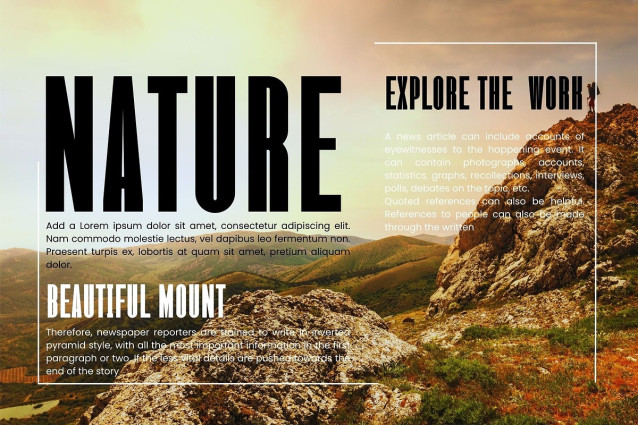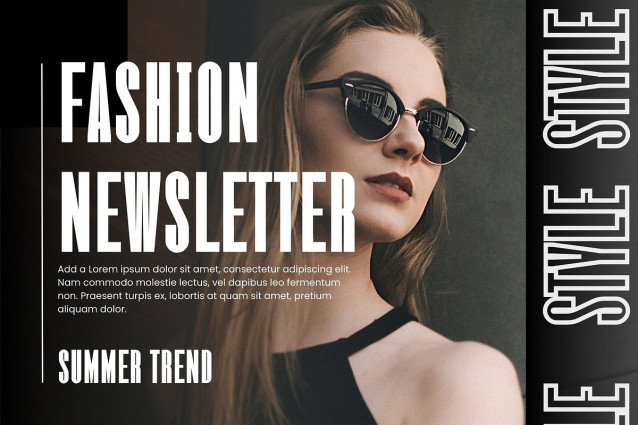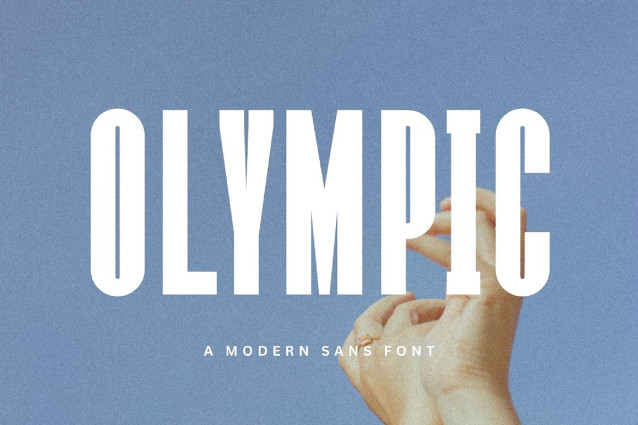
Olympic Font
Olympic Font, inspired by the famous minimalist logo perfect for the purposes of designing templates, brochures, videos, advertising branding, logos, invitation, layout design, elegant crafting, beauty design and more.